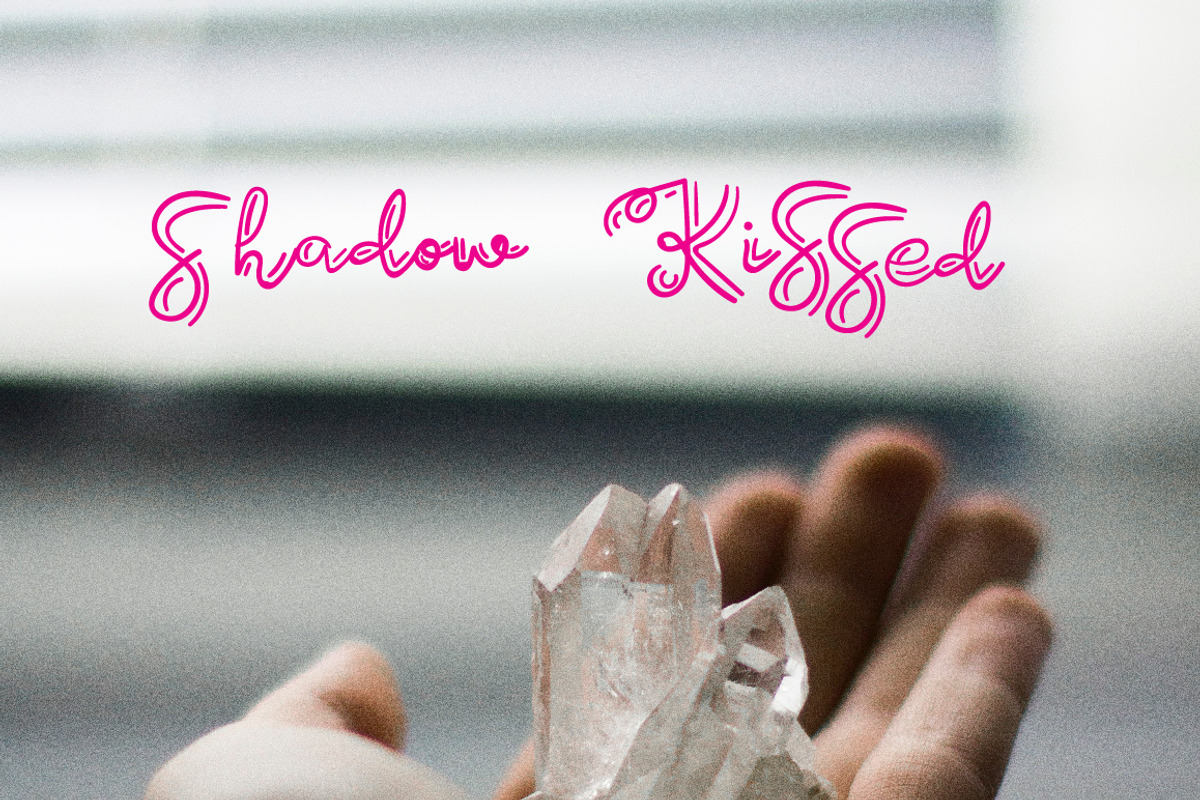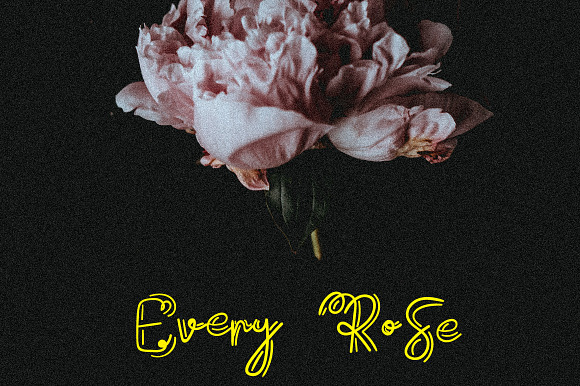
Damon and Angel font
Why Damon and Angel font is worth a look
Damon and Angel font by Zmapist fits naturally into Branding, posters, packaging, typography.